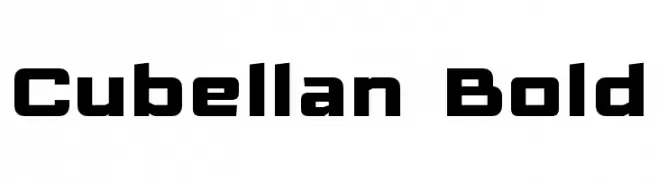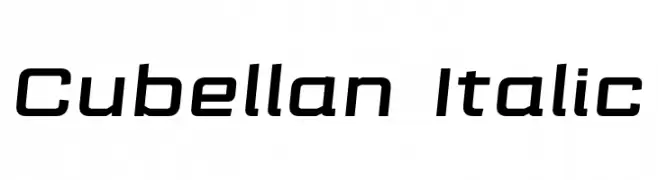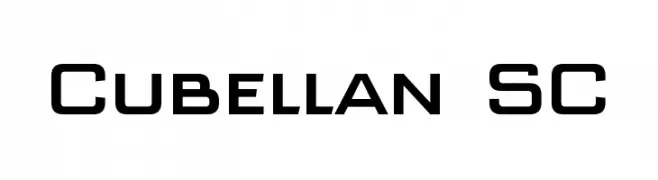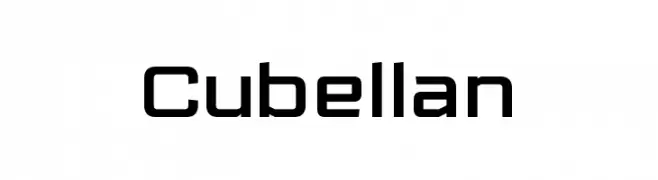
A futuristic, geometric font with angular, block-like characters.
A modern, geometric font with clean lines and uniform stroke width.
A modern, geometric font with consistent stroke width and balanced characters.
A modern, italicized font with a sleek, angular design.
A bold, geometric font with strong lines and modern appeal.